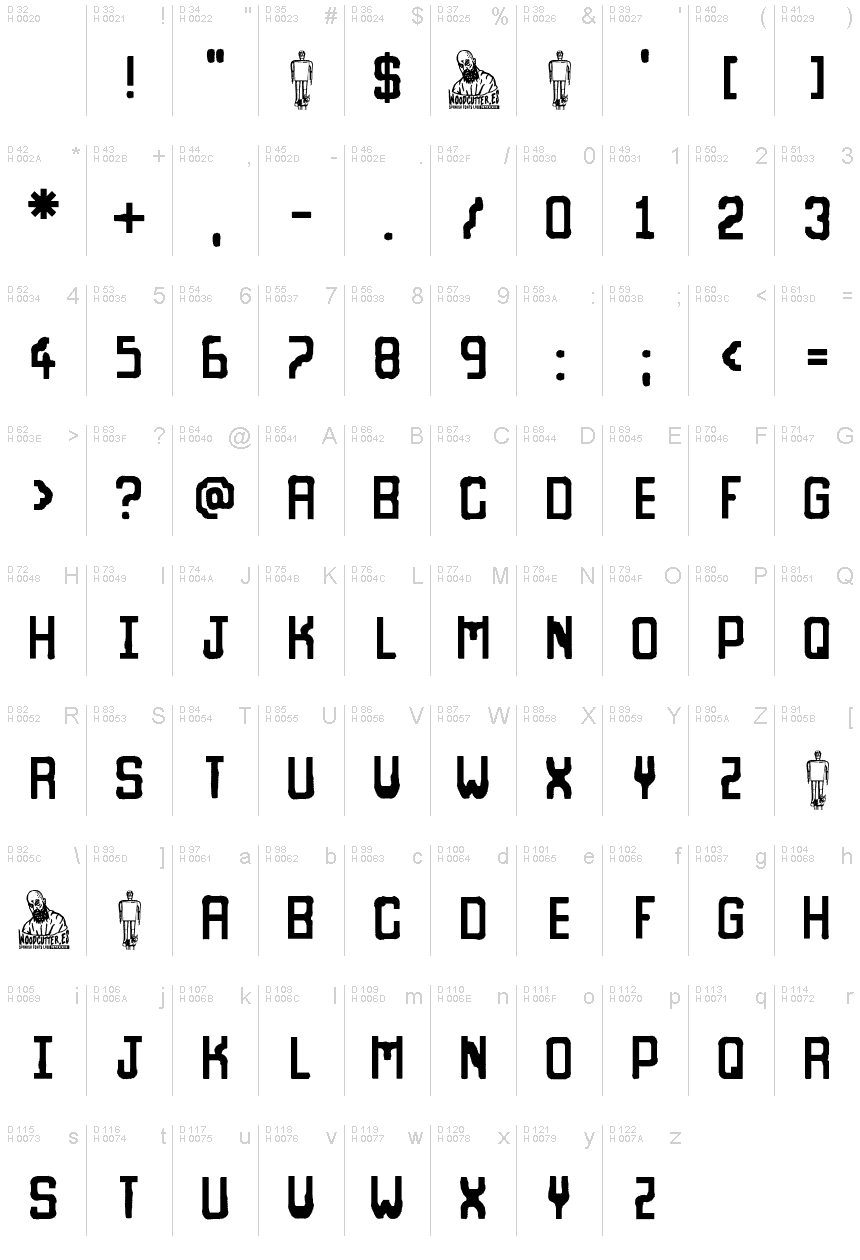
White Robot
White Robot, designed by Woodcutter, is a captivating display font that adds a touch of creativity to any project. With its distorted style, this semi-light typeface brings an edgy and unique vibe to your designs.
The semi-condensed width allows for efficient use of space, making it perfect for eye-catching headlines and attention-grabbing logos. Ideal for album covers, modern websites, or even sci-fi movie titles, White Robot will make your projects stand out from the crowd with its distinctive and artistic appeal.